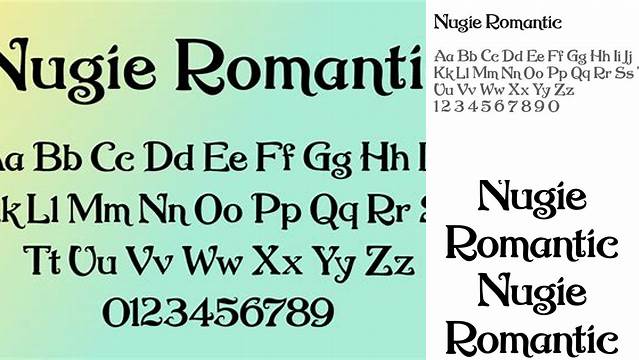
Hey guys! Looking to add a touch of romance and elegance to your designs? You've come to the right place! In this article, we're diving deep into the Nugie Romantic Font, a beautiful typeface that's perfect for a wide range of projects. We'll cover everything from where to download it for free to how to use it effectively in your designs. So, buckle up and let's get started!
Nugie Romantic Font: What Makes It Special?
The Nugie Romantic Font isn't just another pretty typeface; it's a font with character and a story to tell. Its flowing lines, delicate curves, and elegant serifs give it a distinct romantic feel, making it ideal for projects that need a touch of sophistication and charm. Whether you're designing wedding invitations, creating branding materials, or working on a personal project, the Nugie Romantic Font can help you achieve a stunning visual impact.
Understanding the Nugie Romantic Font Style
The unique style of the Nugie Romantic Font is what sets it apart. It perfectly blends classic and contemporary elements, resulting in a typeface that feels both timeless and modern. The serifs are refined and graceful, while the overall letterforms have a gentle, flowing quality. This makes it highly versatile, suitable for both headlines and body text, although it truly shines in display settings where its personality can take center stage.
Best Uses for Nugie Romantic Font
So, where does the Nugie Romantic Font truly shine? Think about projects where you want to evoke feelings of love, elegance, and sophistication. Here are some ideas:
- Wedding Invitations: This is a no-brainer! The romantic flair of the font makes it perfect for setting the tone for a special day.
- Logos and Branding: For businesses that want to project a refined and feminine image, the Nugie Romantic Font can be a great choice.
- Greeting Cards: Say it with style! This font adds a touch of class to any greeting.
- Book Covers: Especially for romance novels or historical fiction, the font can create a captivating cover.
- Web Design: Use it for headings and titles to add a touch of elegance to your website.
H3: The Impact of Nugie Romantic Font on Emotional Design
The impact of Nugie Romantic Font on emotional design is substantial, as its elegant and flowing lines evoke feelings of romance, nostalgia, and sophistication. Emotional design focuses on creating products and experiences that resonate with people on an emotional level, and typography is a powerful tool in achieving this. This section will explore how to use Nugie Romantic Font to create emotional designs, discussing how to pair it with colors, imagery, and other design elements to elicit specific emotions. We will cover different emotional design principles and how the font can be used to create a sense of connection, trust, or excitement. Emotional design aims to connect with users, and this section will provide insights on how to use Nugie Romantic Font to create compelling and emotionally resonant experiences. Emotional design is a growing trend in the design world, and the choice of typeface plays a key role in shaping the emotional impact of a design. This discussion will focus on how to use romantic fonts to create designs that evoke specific emotions, ensuring that the overall experience is both engaging and meaningful.